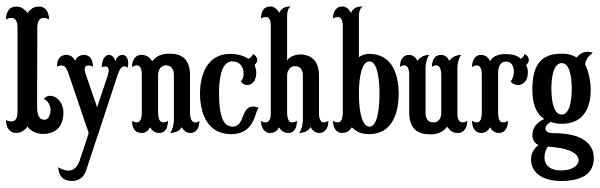
Lynchburg
Lynchburg was inspired by the Jack Daniels Green Label Whiskey logo, included in Lynchburg are a couple Whiskey Barrels located on the less than and greater than keys. Disclaimer: The FontMesa fonts that were inspired by famous company logos...